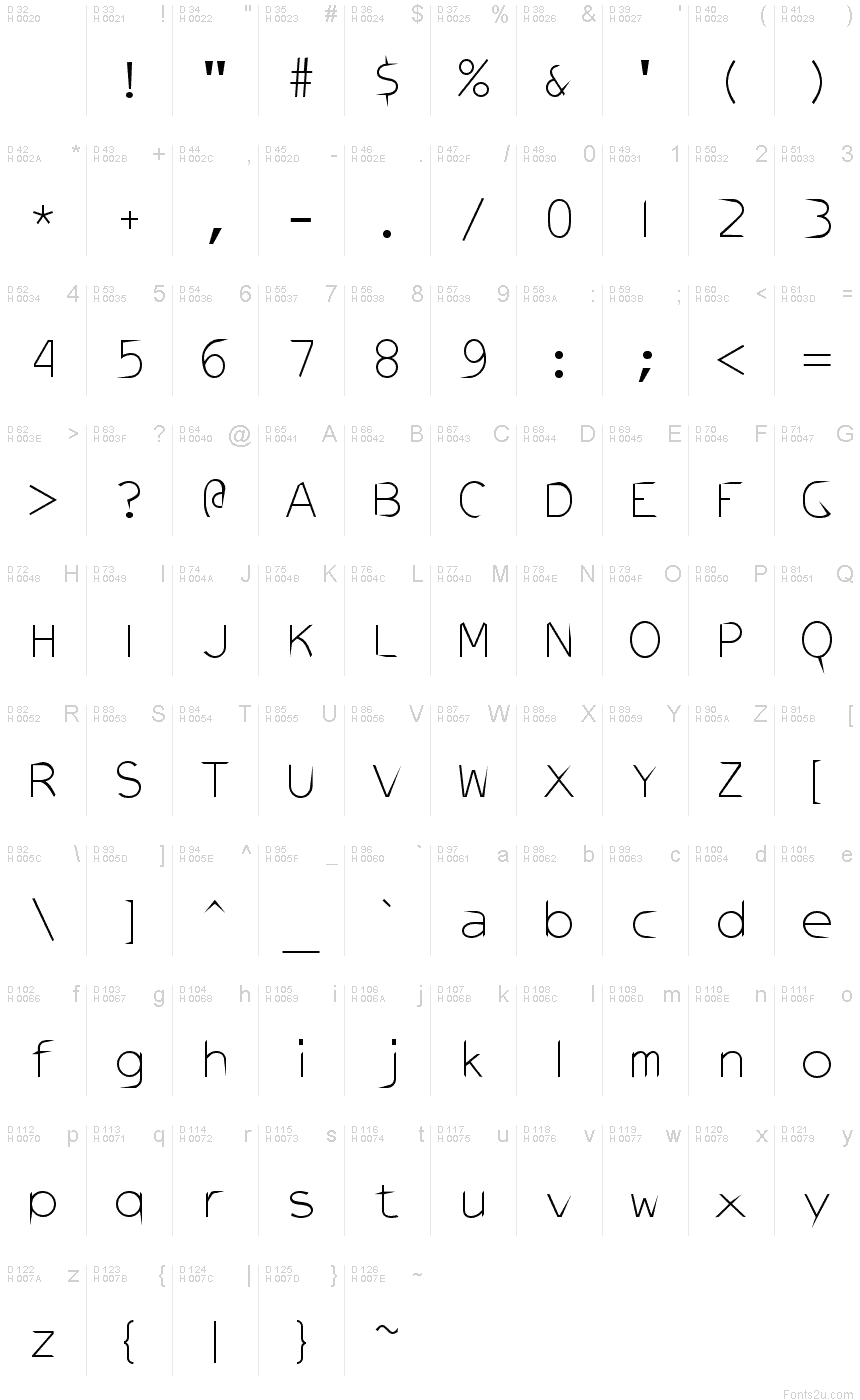
AirCut OneHundedandOne
AirCut OneHundedandOne font by Ray Larabie is a free futuristic sans serif display typeface. From the AirCut family, it’s all about tension between razor-straight stems and round, open bowls, giving words a weightless, high-tech feel. The ultra-clean strokes and generous breathing room make it look like vector wireframes drawn with a single, steady line.
Using AirCut OneHundedandOne, you can give sci‑fi posters, tech branding, indie game titles, UI headings, album covers, and experimental logotypes a cool, engineered elegance. This free font shines when set large, where its thin lines stay crisp and legible; pair it with a simple grotesque or humanist sans for body text to keep the focus on its airy character.